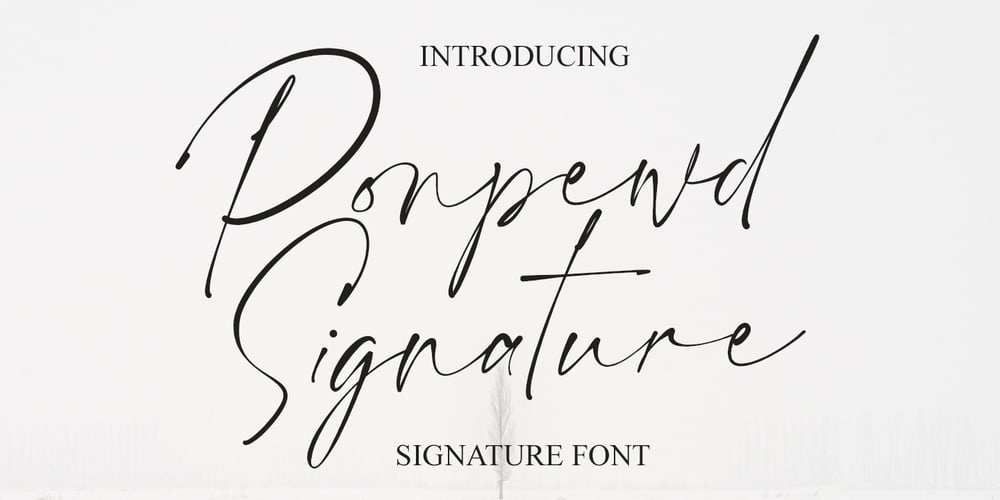
Ponpewd Signature Font Family was designed by Gilang Maulana and published by Maulana Creative. Ponpewd Signature contains 1 styles and family package options. Ponpewd is a Signature Script Brush Font. With bold mono-line stroke, slant and fun character with a bit of ligatures. To give you an extra creative work. Ponpewd font support multilingual more than 100+ language. This font is good for logo design, Social media, Movie Titles, Books Titles, a short text even a long text letter and good for your secondary text font with sans or serif. Make a stunning work with Ponpewd font.Cheers, MaulanaCreative